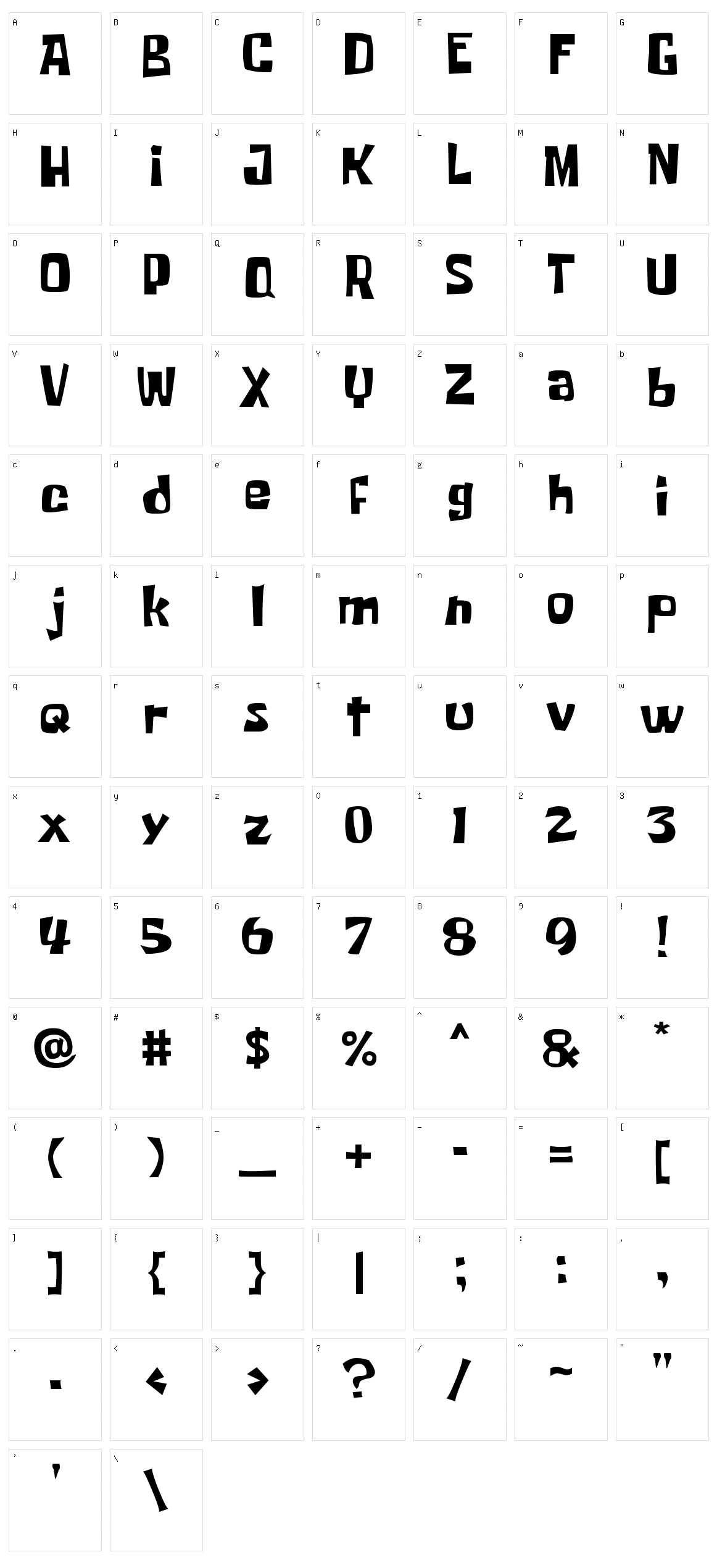
The free font Spongeboy Me Bob is carefully designed by EyeOfTheLioness, showcasing a thoughtful balance of creativity and usability and falls under the Cartoon font style. When you download the ZIP file, it contains only 12.24 KB of font files, making it lightweight and quick to download. Please review the license details below to understand permitted usage and distribution rights. If license information is not available, we recommend using this font for personal projects only or contacting the author directly for commercial usage permissions.